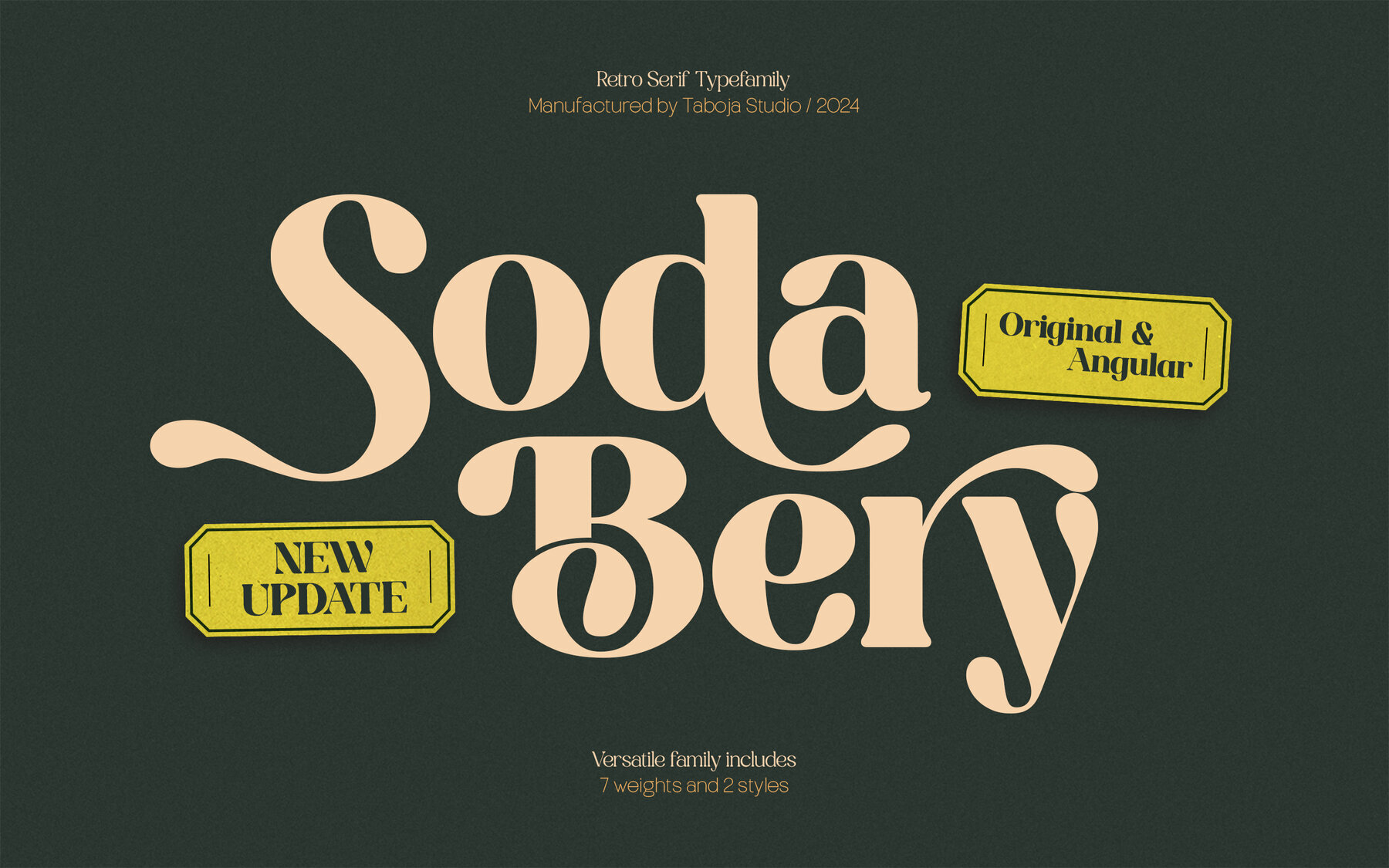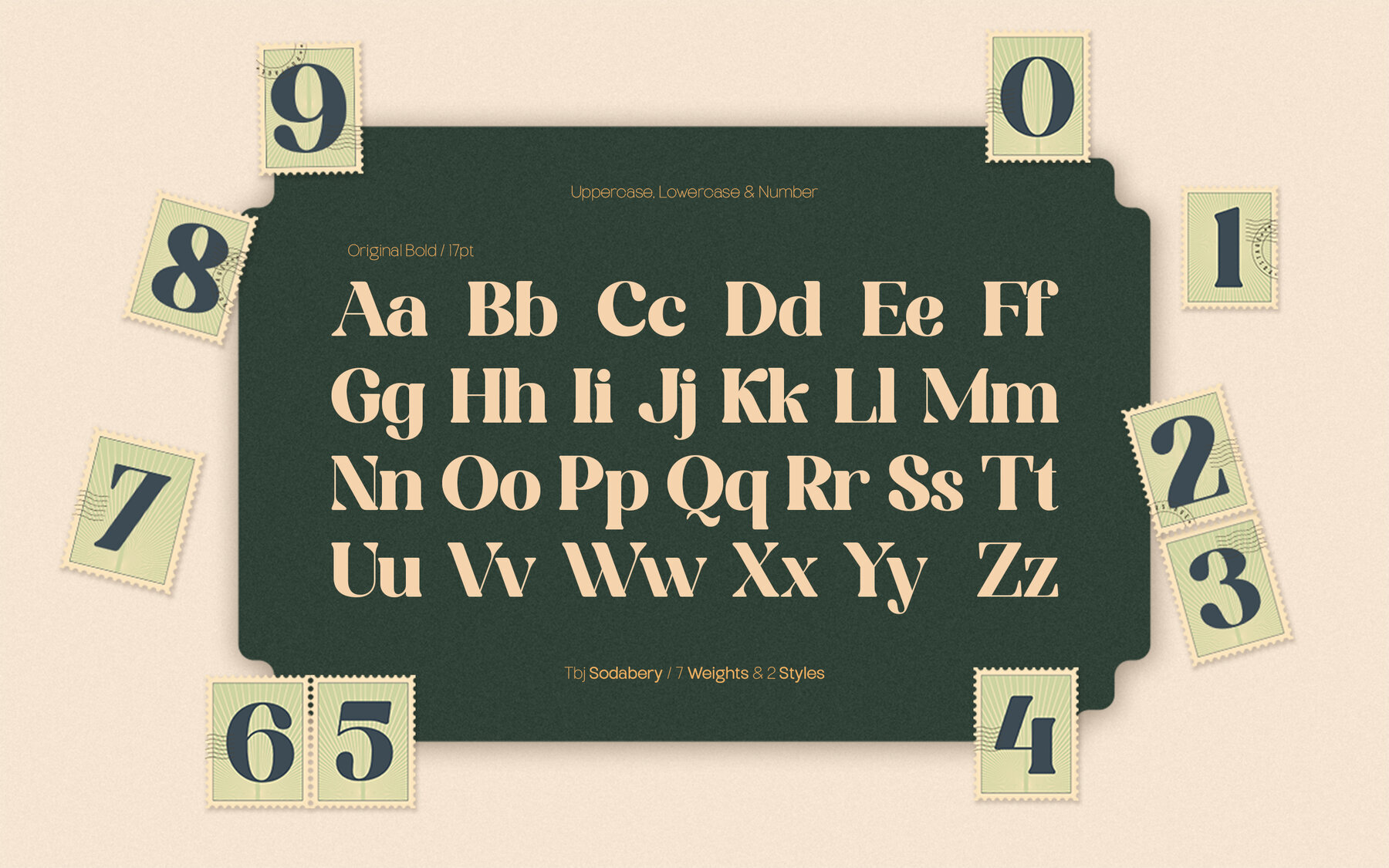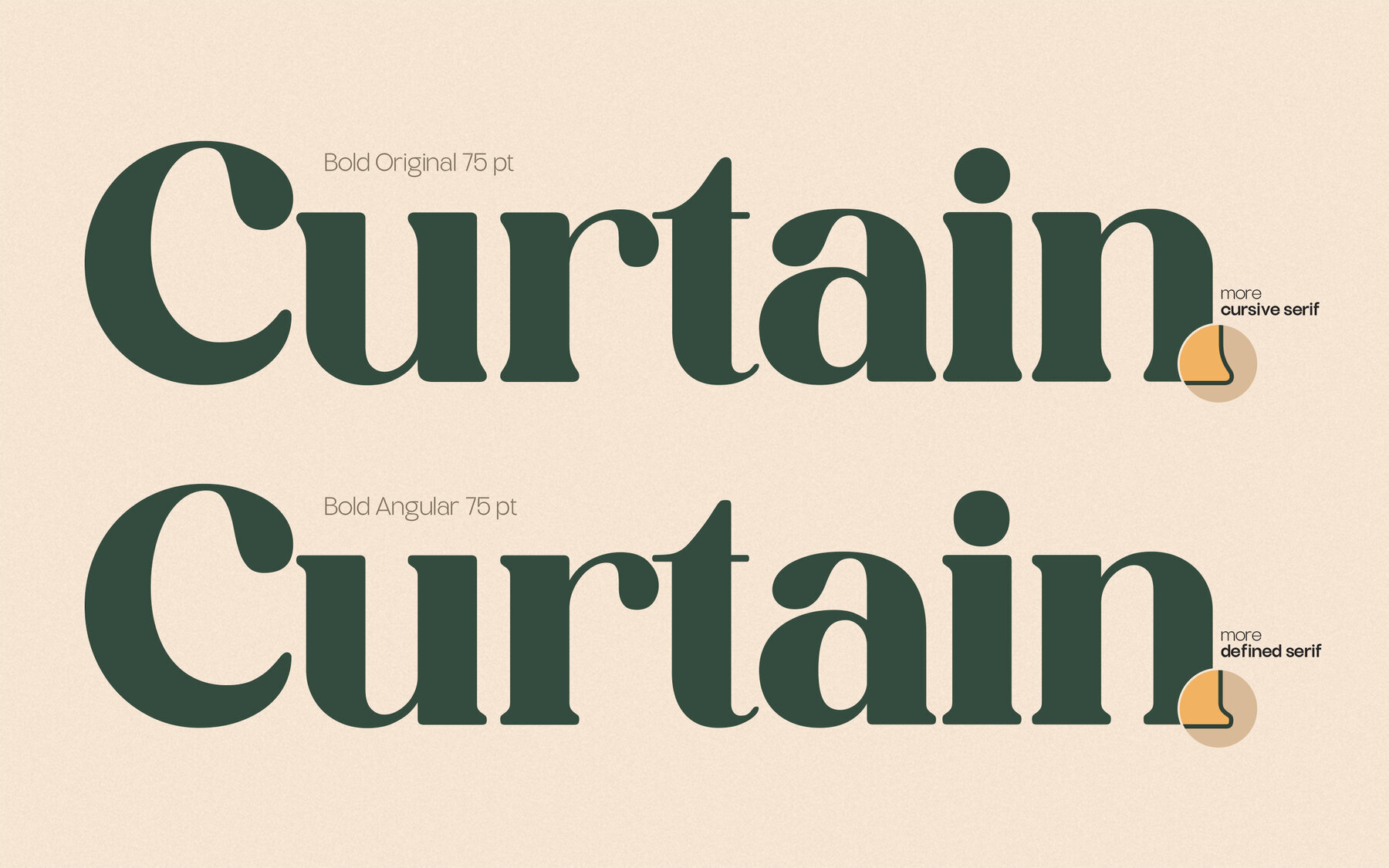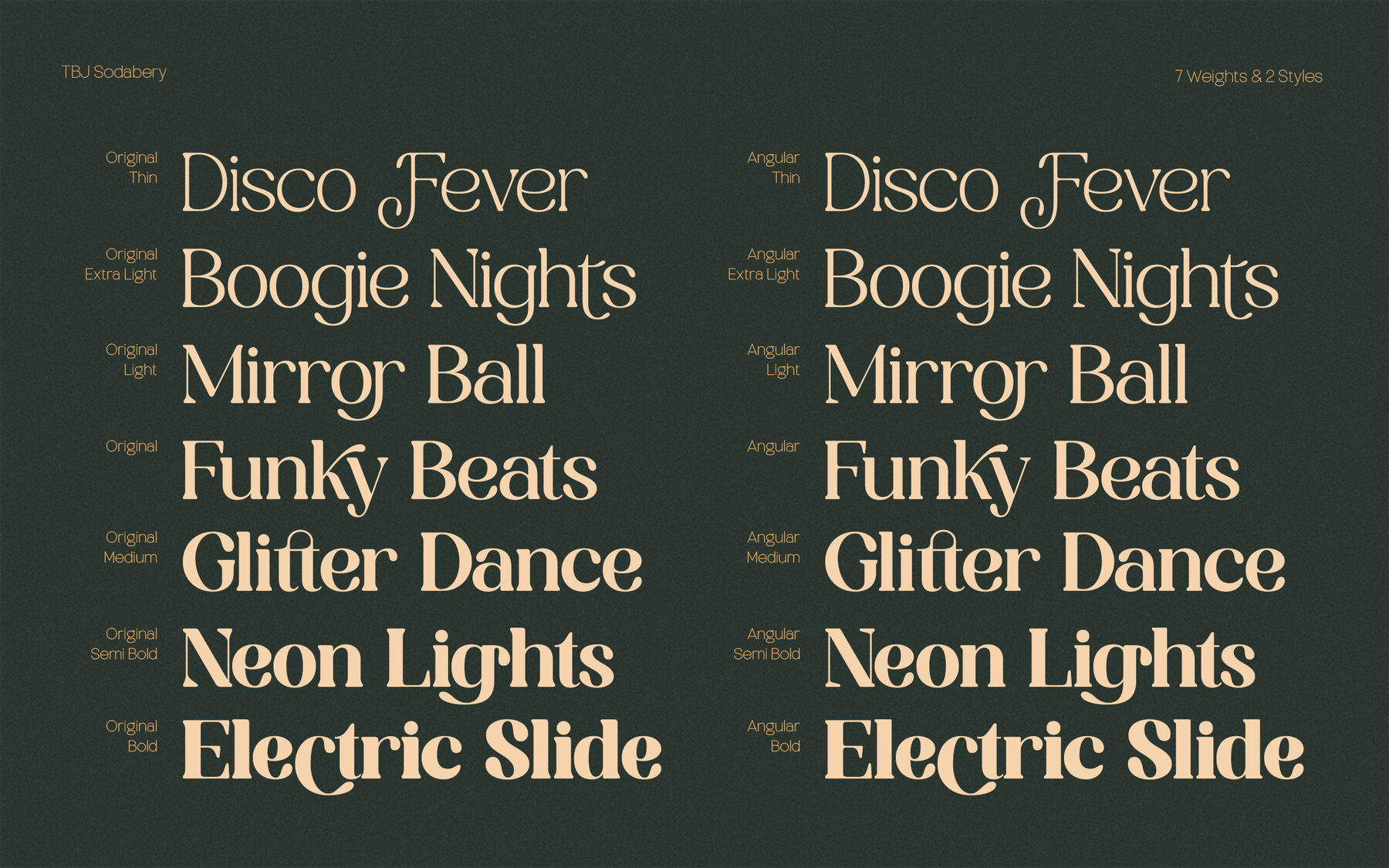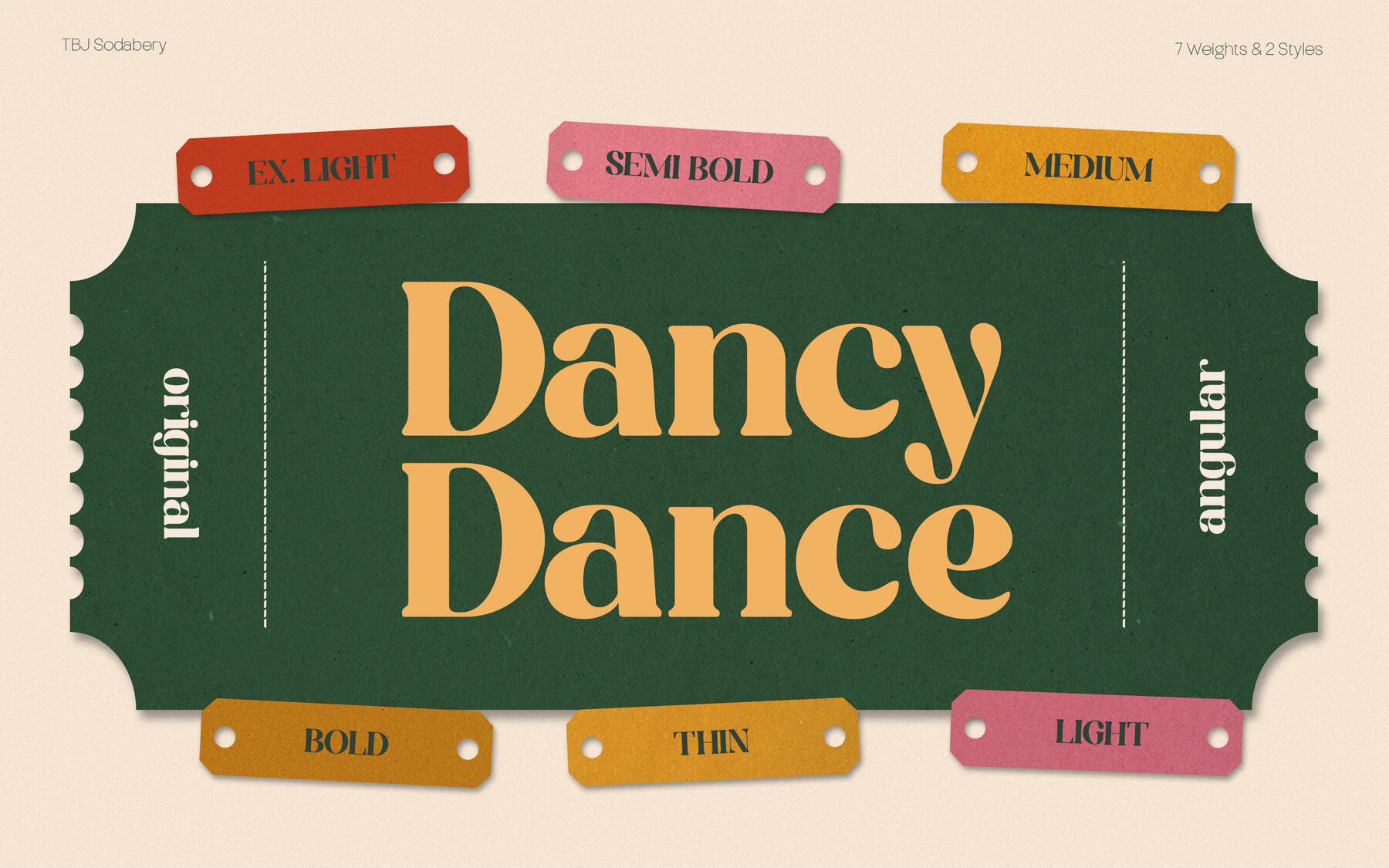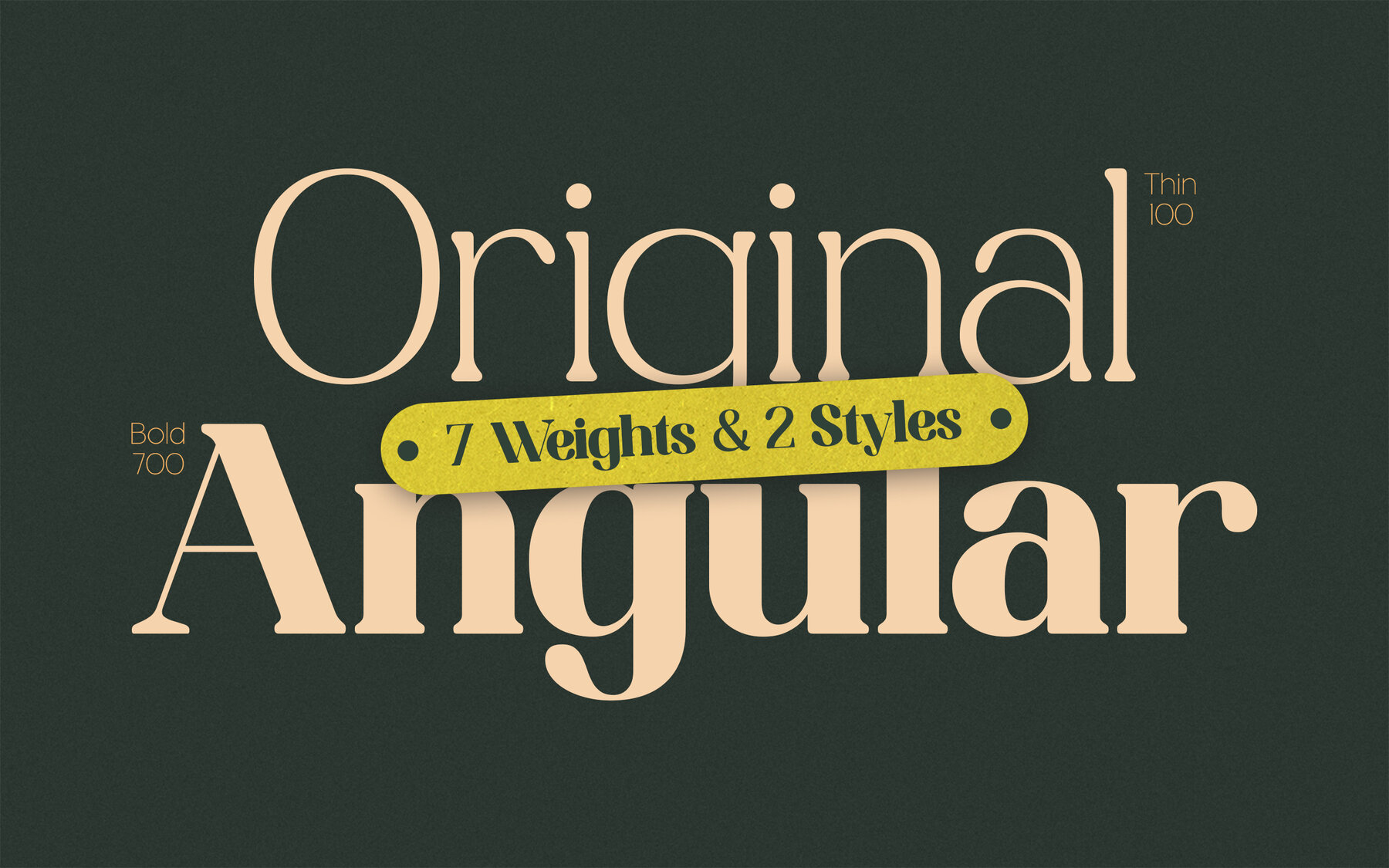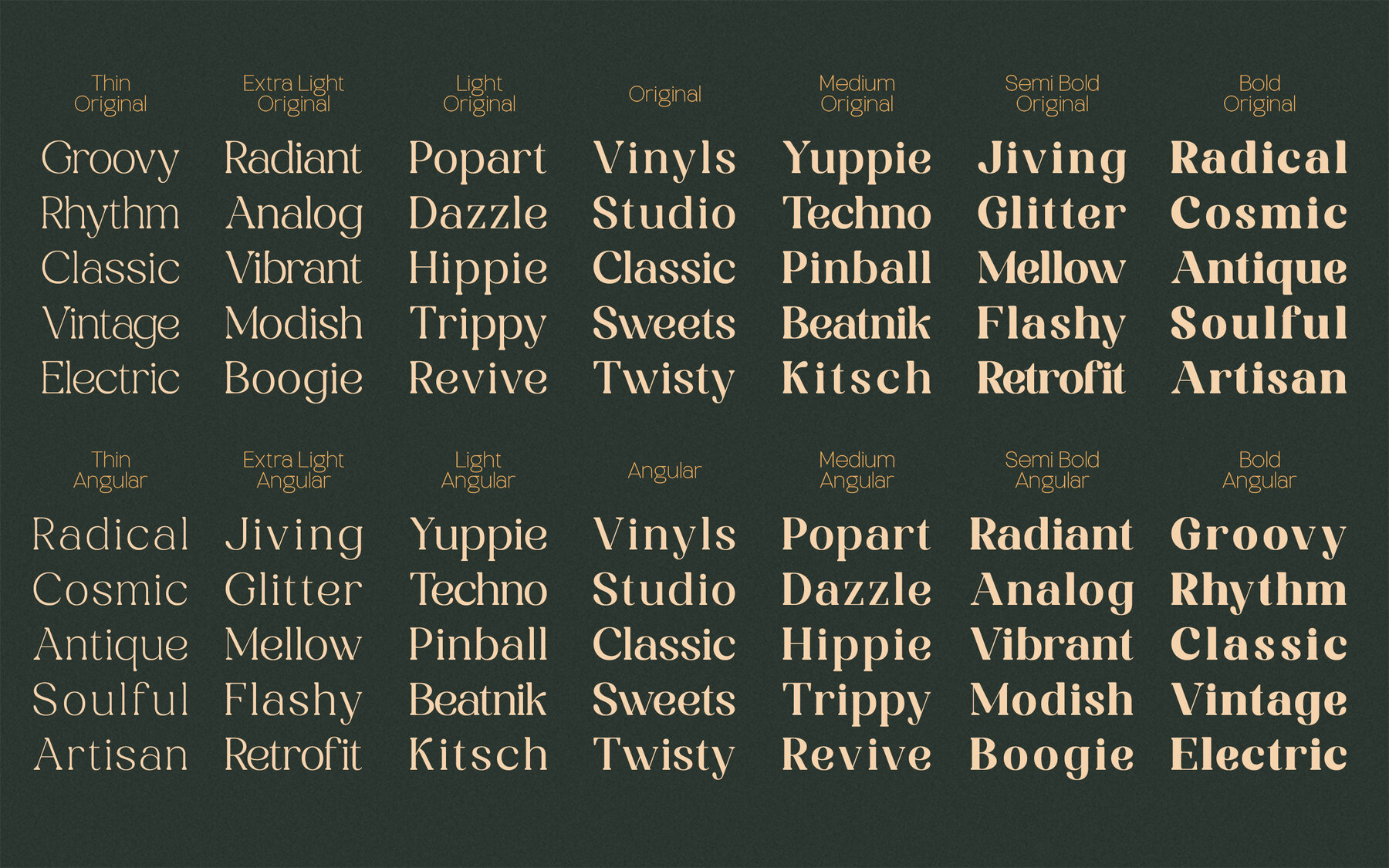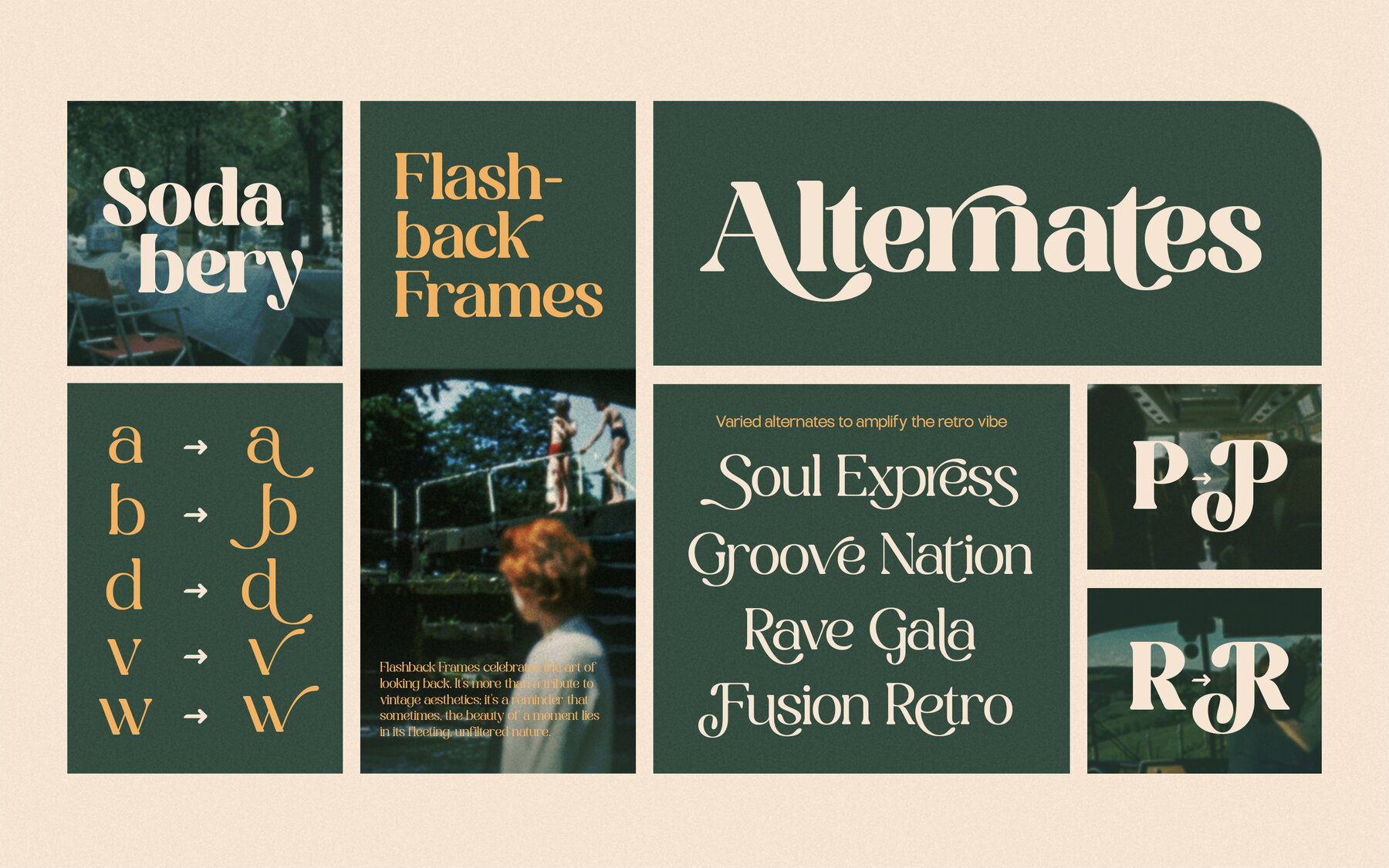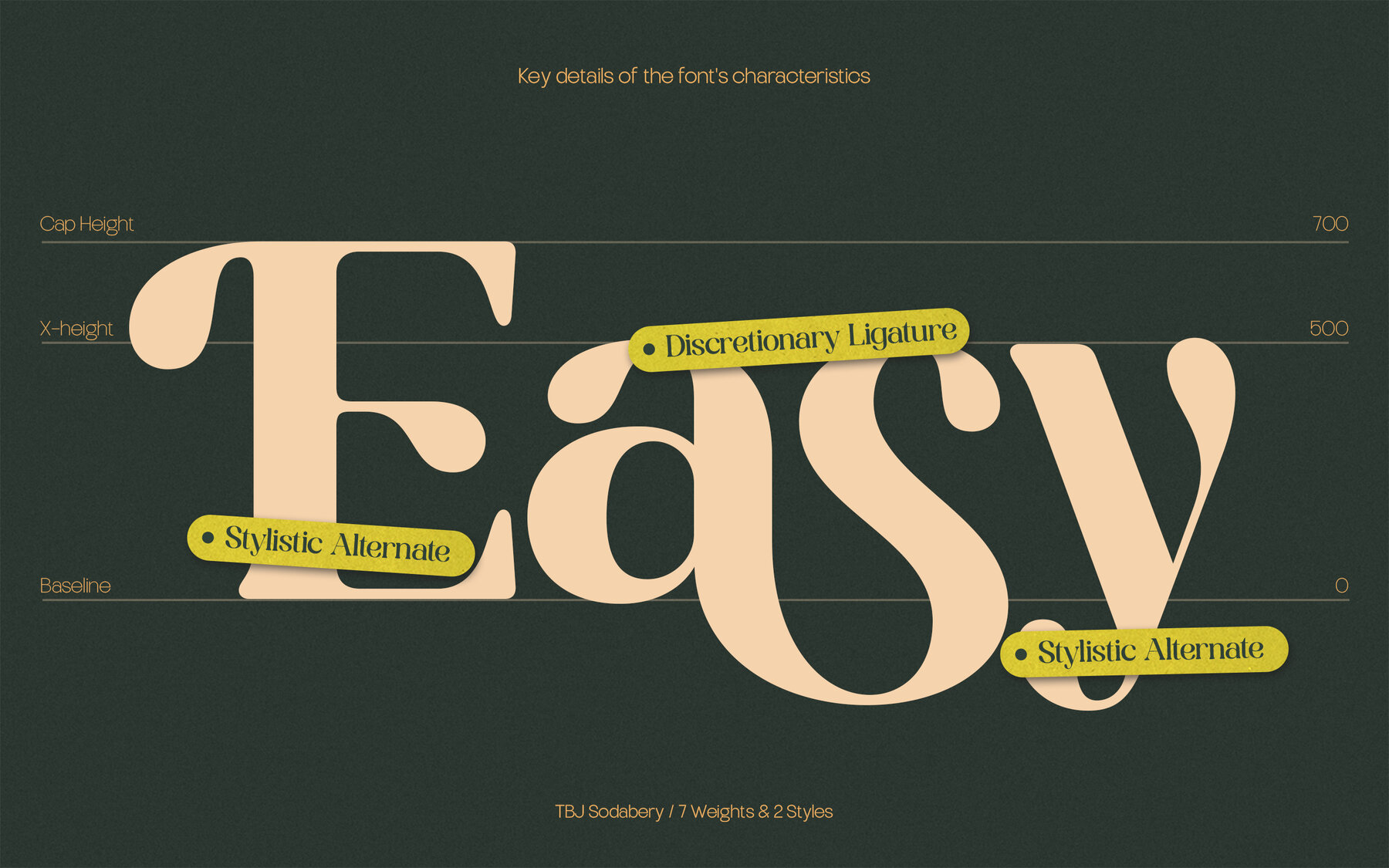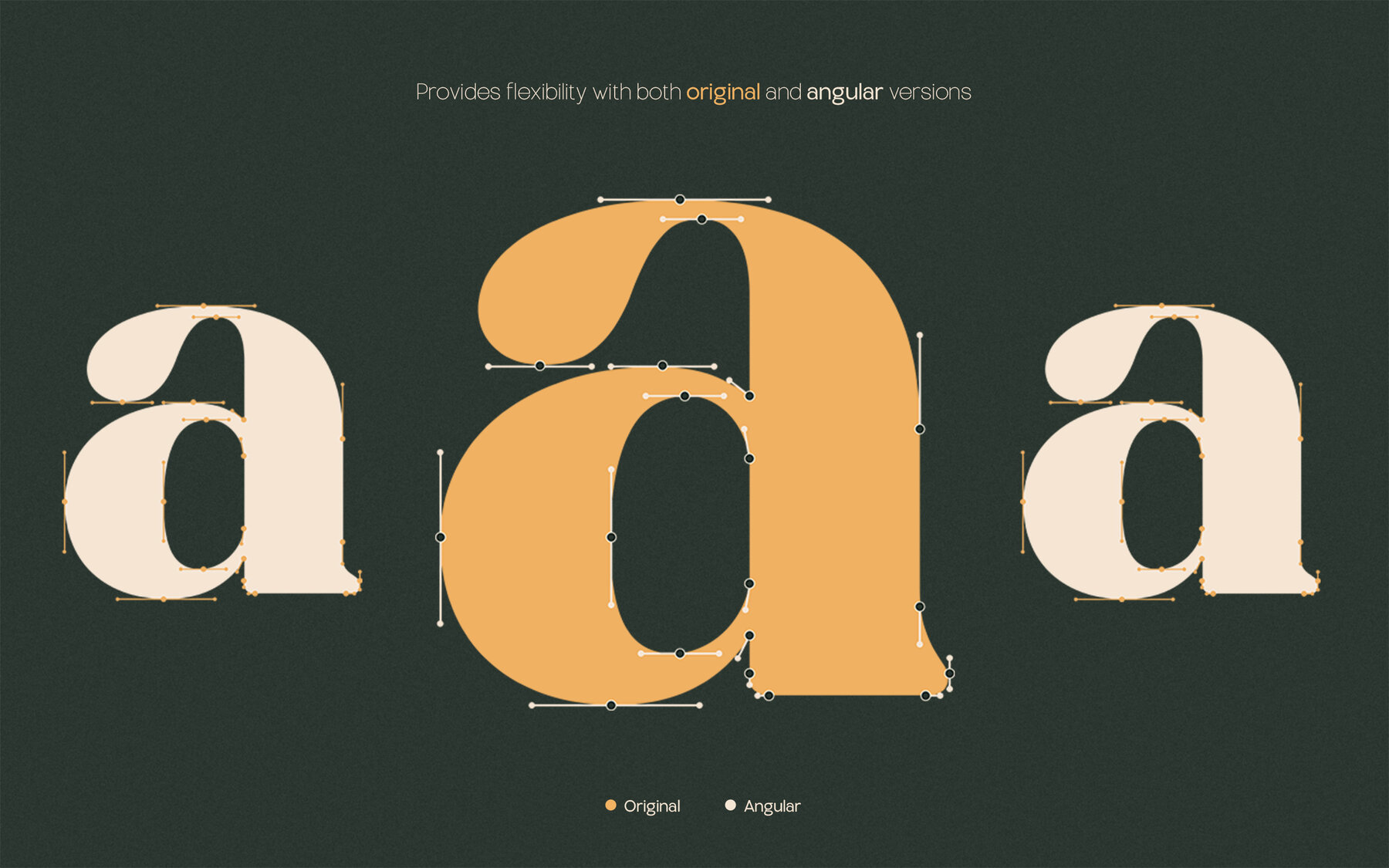
TBJ Sodabery Font
TBJ Sodabery offers a seamless blend of retro charm and modern versatility, making it ideal for both print and digital projects. This expanding font family provides 7 weights across two distinctive styles: Original and Angular Serif. Whether you're crafting bold headlines or seeking easily readable body text, TBJ Sodabery promises a perfect mix of style and functionality. With enhanced readability and a variety of added alternates, this typeface is designed to evolve alongside your creative demands.
More than just a typeface, TBJ Sodabery is a meticulously crafted design tool that enriches every project it touches. Featuring 363 glyphs, 115 varied alternates and ligatures, uppercase and lowercase letters, numerals, punctuation, and accented characters, it supports multilingual projects with PUA Unicode encoding. This design asset offers the flexibility needed to make each of your projects uniquely stand out.